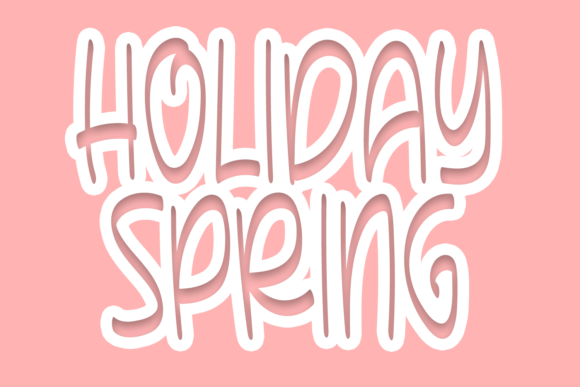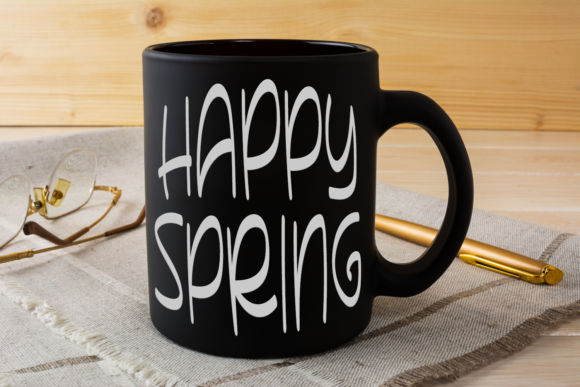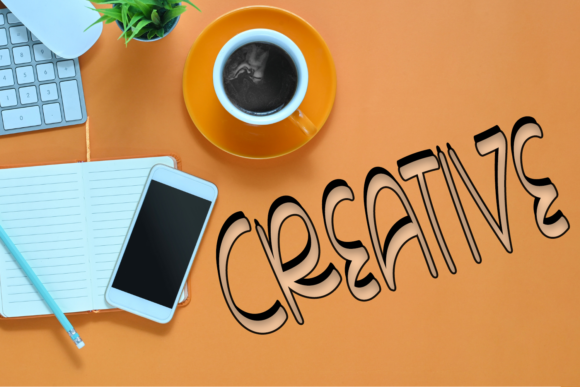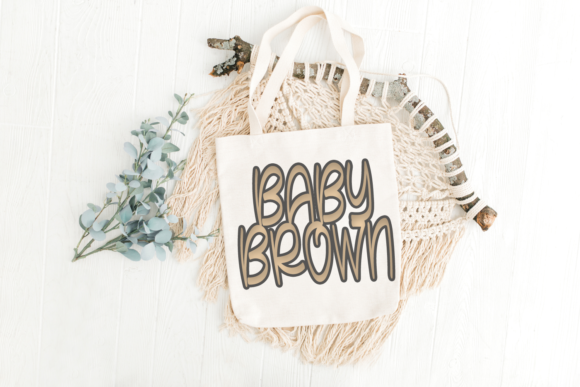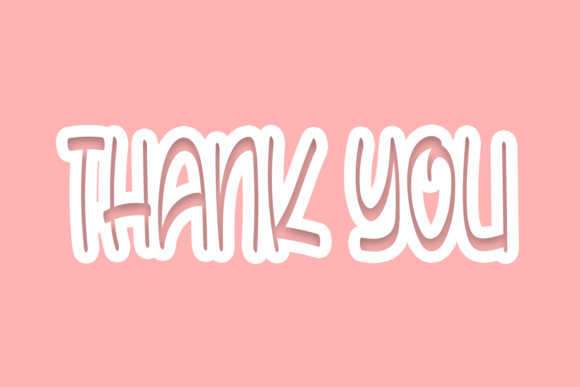
Introducing April Font: A Simple, Friendly, and Natural Handwritten Delight
Are you on the lookout for a font that adds a bright and cheerful touch to your creative projects? Look no further than April Font, a simple, friendly, and natural handwritten font that’s perfect for a variety of applications. In this article, we’ll dive into the world of April Font, exploring its features, uses, and benefits for designers and crafters.
What is April Font?
April Font is a beautiful, hand-crafted font that’s designed to bring a sense of warmth and approachability to your designs. With its smooth, flowing lines and rounded edges, this font exudes a friendly and inviting feel that’s sure to capture the hearts of your audience. Whether you’re working on a project for children, school, or any other creative endeavor, April Font is an excellent choice.
Key Features of April Font
So, what makes April Font so special? Here are some of its key features:
- Simple and Easy to Read: April Font has a clean and straightforward design that makes it easy to read, even at smaller font sizes.
- Handwritten with Love: This font is carefully crafted to mimic the look and feel of handwritten text, adding a personal touch to your designs.
- Natural and Friendly: April Font has a warm and approachable feel that’s perfect for designs that require a human touch.
- Versatile: This font works great on a wide range of creative projects, from children’s books and educational materials to crafts and DIY projects.
Uses for April Font
April Font is an incredibly versatile font that can be used in a variety of creative projects. Here are some ideas to get you started:
- Children’s Books and Educational Materials: April Font is perfect for creating engaging and interactive children’s books, educational worksheets, and activity sheets.
- Crafts and DIY Projects: Add a personal touch to your craft and DIY projects, such as handmade cards, gift tags, and scrapbooking pages.
- School and Educational Projects: Use April Font to create eye-catching posters, presentations, and educational resources for students.
- Digital and Social Media Graphics: April Font is also great for creating digital graphics, such as social media posts, blog headers, and email newsletters.
So, why should designers and crafters choose April Font for their projects? Here are some benefits:
- High-Quality Design: This font is carefully crafted to provide a high-quality design that’s perfect for printing and digital use.
In conclusion, April Font is a simple, friendly, and natural handwritten font that’s perfect for a variety of creative projects. With its smooth lines, rounded edges, and warm feel, this font is sure to capture the hearts of your audience. Whether you’re a designer or crafter, April Font is an excellent choice for adding a bright and cheerful touch to your designs. So why wait? Try April Font today and see the difference it can make in your creative projects!